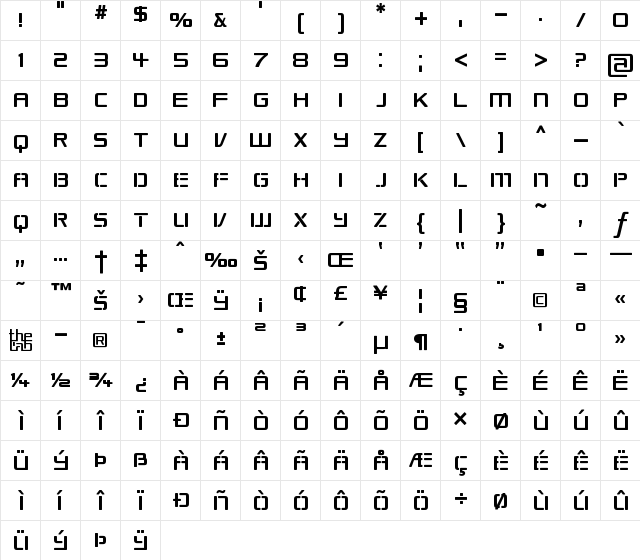
Republikaps Regular
Design Context for Republikaps Typeface
Republikaps takes a measured approach to typography — its balanced proportions and neutral character make it a reliable workhorse for both digital and print work.